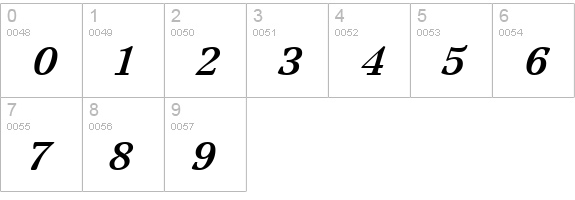
Jamille Bold Italic Font Details
Jamille Bold Italic is a strong, high-contrast, italic variant in the Jamille typeface family \xE2\x80\x94 well suited to headlines, attention-grabbing titles, and strong calls-to-action.
Jamille Bold Italic font is a stunning display font that adds a touch of elegance and modernity to any design project. Its bold and italicized form exudes confidence and sophistication, making it perfect for headings, titles, and branding materials. With its unique and eye-catching letterforms, Jamille Bold Italic font captivates the viewer's attention and leaves a lasting impression. The smooth curves and distinctive slant of the italicized characters give a sense of movement and dynamism, making any text look visually engaging and stylish. What sets Jamille Bold Italic font apart is not only its impeccable design but also its accessibility. It is freely available to download at FontsMarket.com, allowing designers, creatives, and typography enthusiasts to utilize this extraordinary font without any financial constraints. Whether you are working on a logo, poster, website, or any other design project, Jamille Bold Italic font will effortlessly elevate your work to the next level. Its versatility and timeless appeal make it suitable for both contemporary and classic designs, giving you endless possibilities to explore. So, why settle for ordinary when you can make a bold statement with Jamille Bold Italic font? Download it for free at FontsMarket.com and let your creativity soar. Unleash the power of this exceptional font and bring your designs to life with its impeccable style and character.